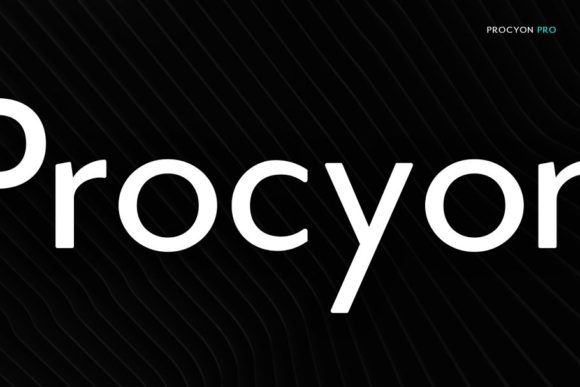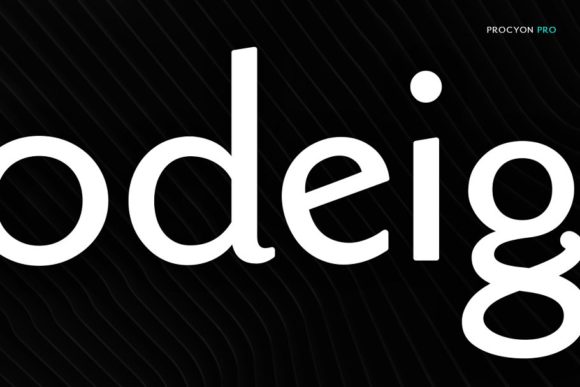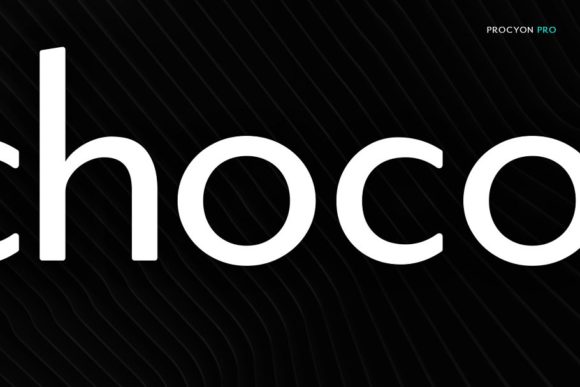
Introduction to Procyon Font
Have you ever found yourself stuck in a creative rut, struggling to find the perfect font to bring your design to life? It’s a feeling we’ve all been there, staring at a blank canvas with a blank mind. But what if I told you that there’s a font that could change everything? Enter Procyon Font, a minimalist sans serif font that’s about to become your new go-to design resource.
With its elegant and simple style, Procyon Font is the perfect solution for any creative project. Whether you’re working on a logo, brochure, or website, this versatile font will help you convey your message with clarity and precision. And the best part? It’s completely free to download, making it an invaluable resource for designers of all levels.
Key Features of Procyon Font
- High-quality design resource ideal for creative projects, offering a clean and modern aesthetic.
- Features a transparent background, allowing for seamless integration into complex design compositions.
- Designed with a high level of detail and precision, resulting in a crisp and clear visual experience at resolutions up to 300 DPI.
- Supports a range of languages, making it a versatile design resource for global creative projects.
- Available in a range of font sizes, from 12 to 72 points, providing flexibility for various design applications.
Honest Review: Procyon Font
I recently had the chance to work with the Procyon Font, and I must say it’s a solid addition to any design arsenal. ✨
One of the things that caught my eye was the high quality of the font, with crisp lines and a clean aesthetic that makes it perfect for creative projects that require a bit of sophistication.
As a designer, I appreciate the transparency of the font, making it easy to use even with transparent backgrounds. This is especially useful for designs that require a touch of elegance.
Some of the key features of the Procyon Font include:
- High-quality vector design
- Clean and modern aesthetic
- Transparency options
Of course, no font is perfect, and the Procyon Font has a few limitations. ⚠️
The font may not be suitable for extremely large or complex text, and the limited font sizes can make it difficult to scale up.
Overall, I’d say the Procyon Font is a great resource for designers who want a high-quality, modern font for their creative projects. While it may have some limitations, it’s definitely worth checking out for anyone looking for a reliable design resource.
The Procyon Font is a high-quality, free design resource ideal for creative projects that require a unique and modern touch. Its transparent background and clean design make it a versatile choice for various applications.
The Procyon Font is suitable for various creative projects, including graphic design, digital art, and marketing materials. Its high-quality design and transparent background make it an excellent choice for creating visually appealing and engaging content.
For optimal results, use the Procyon Font in conjunction with other high-quality design resources, such as images and graphics. Experiment with different font sizes, colors, and arrangements to create a unique and eye-catching design.